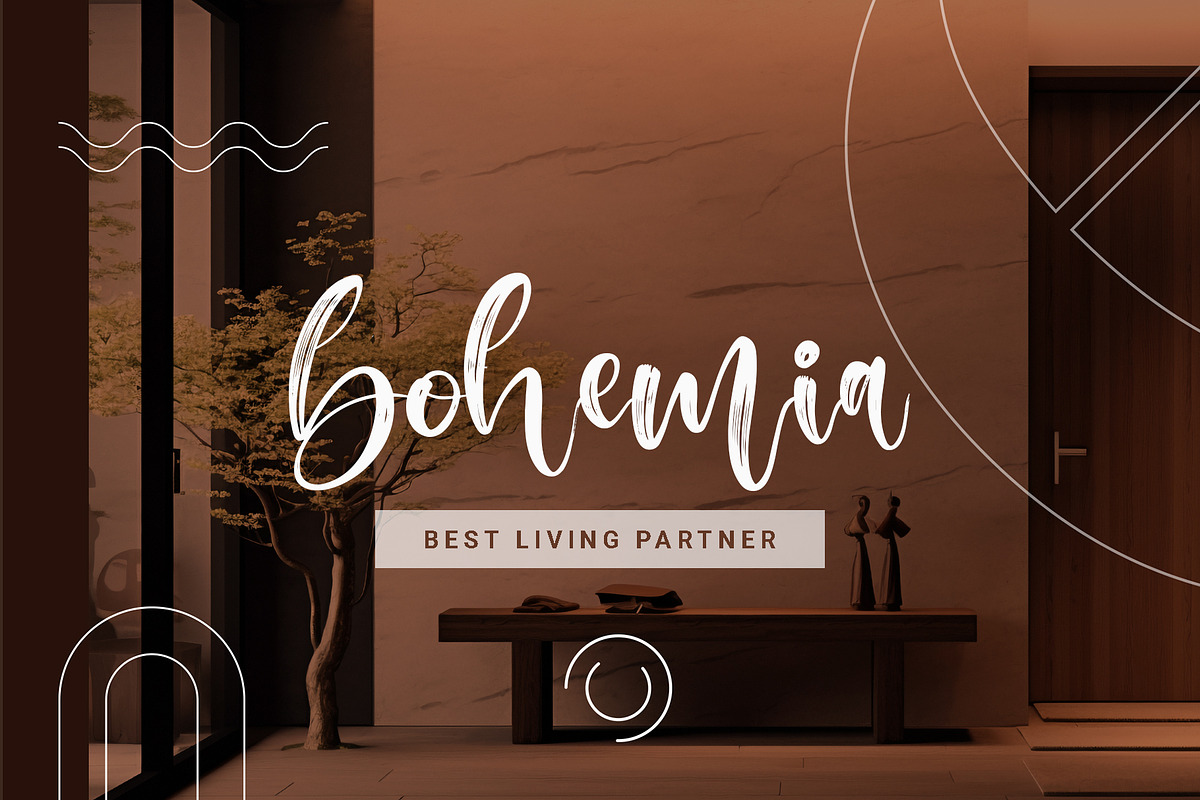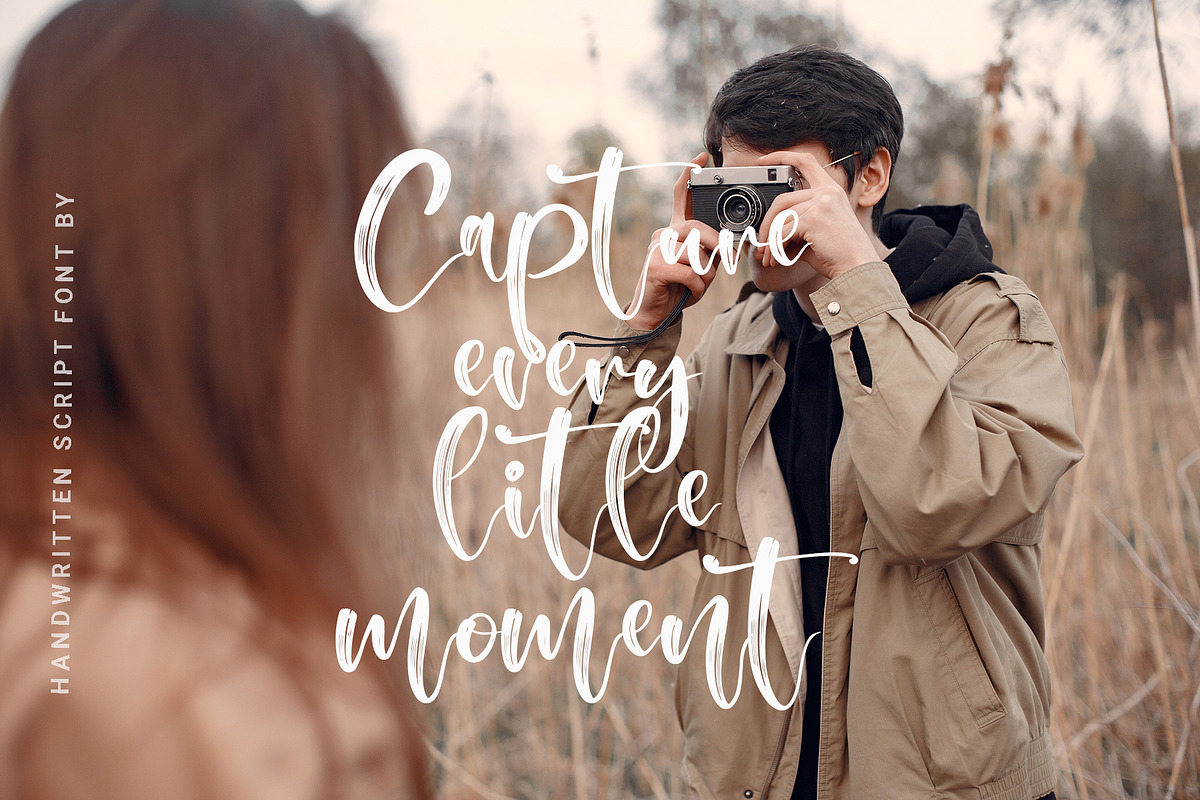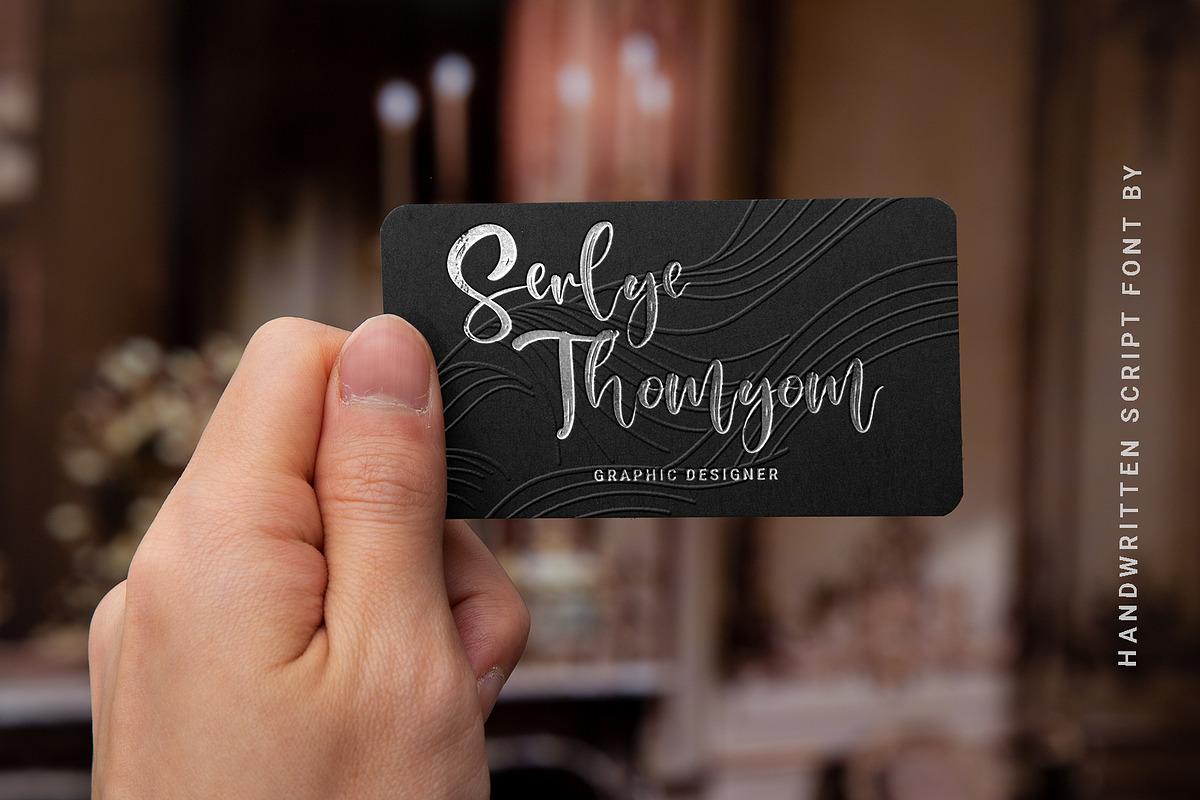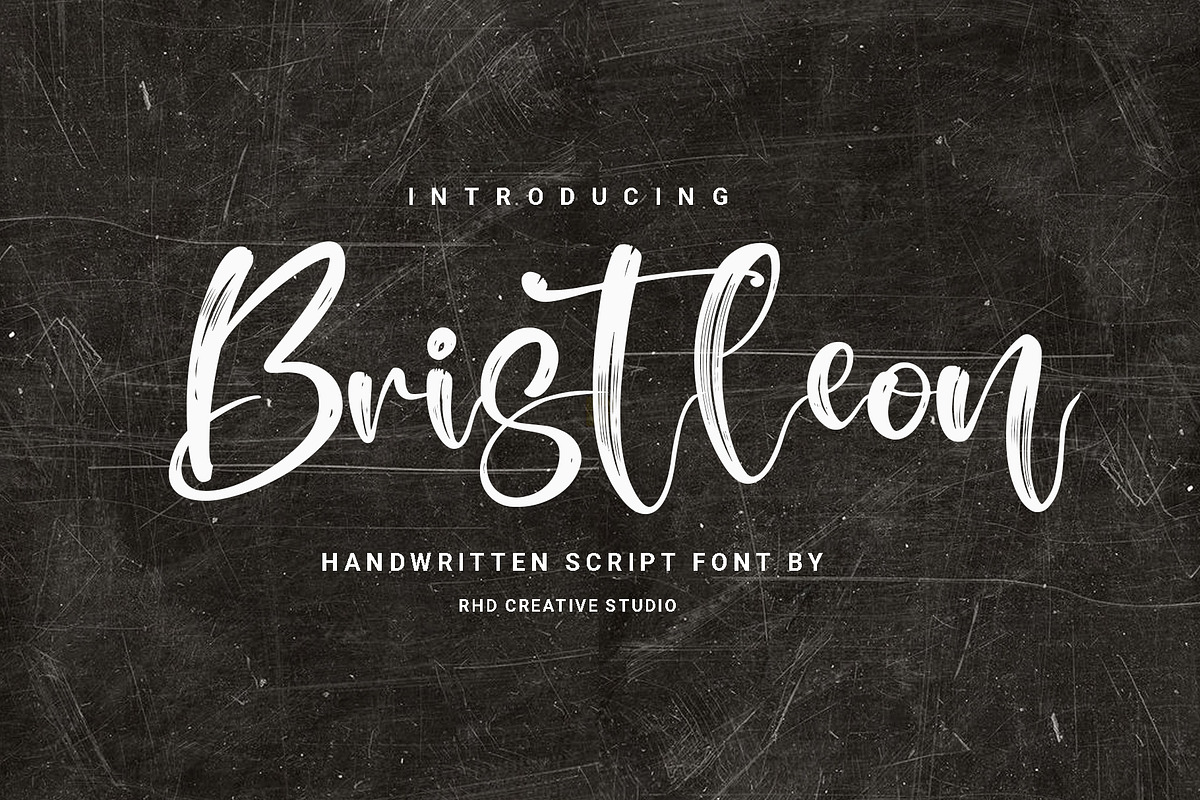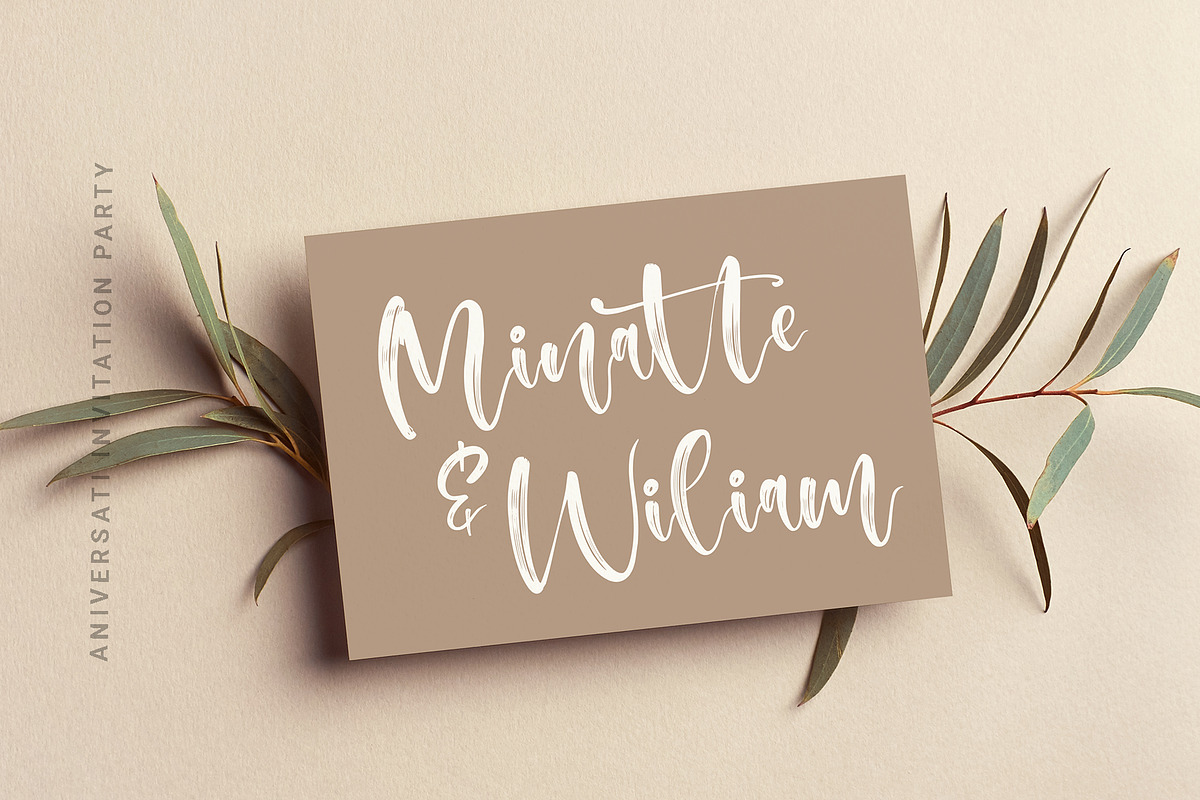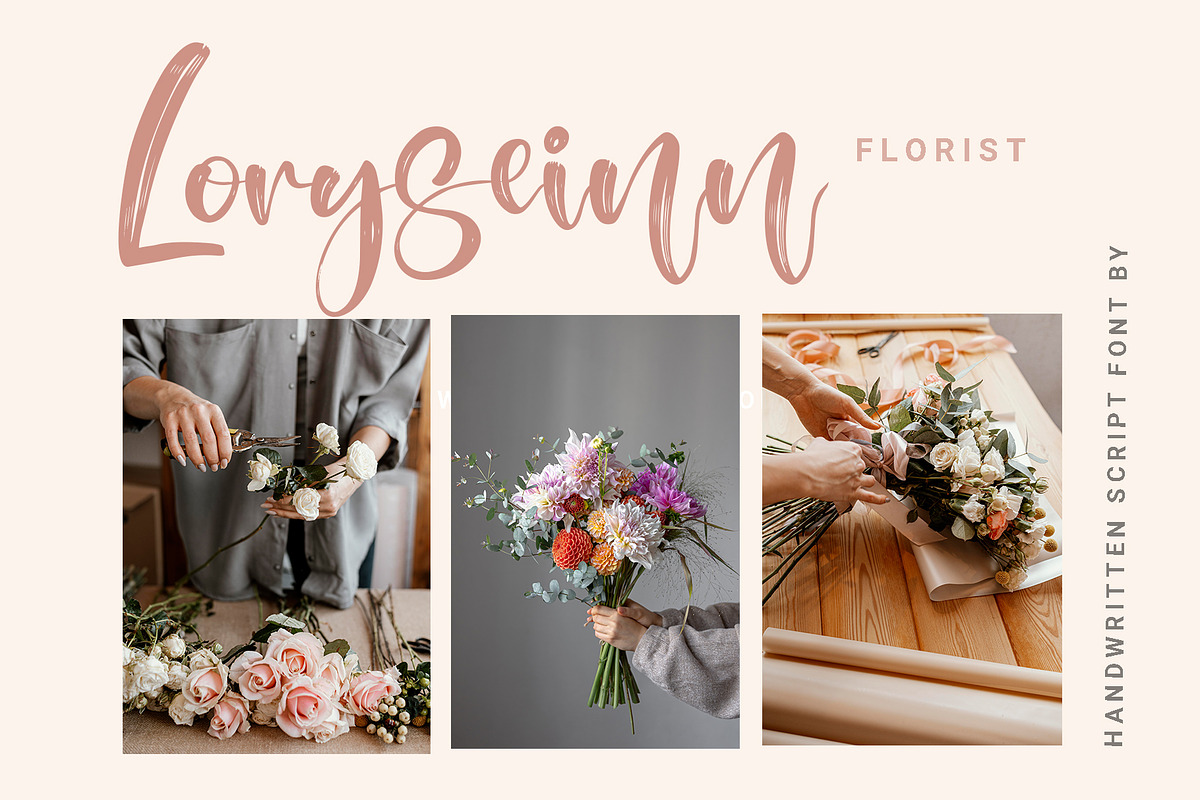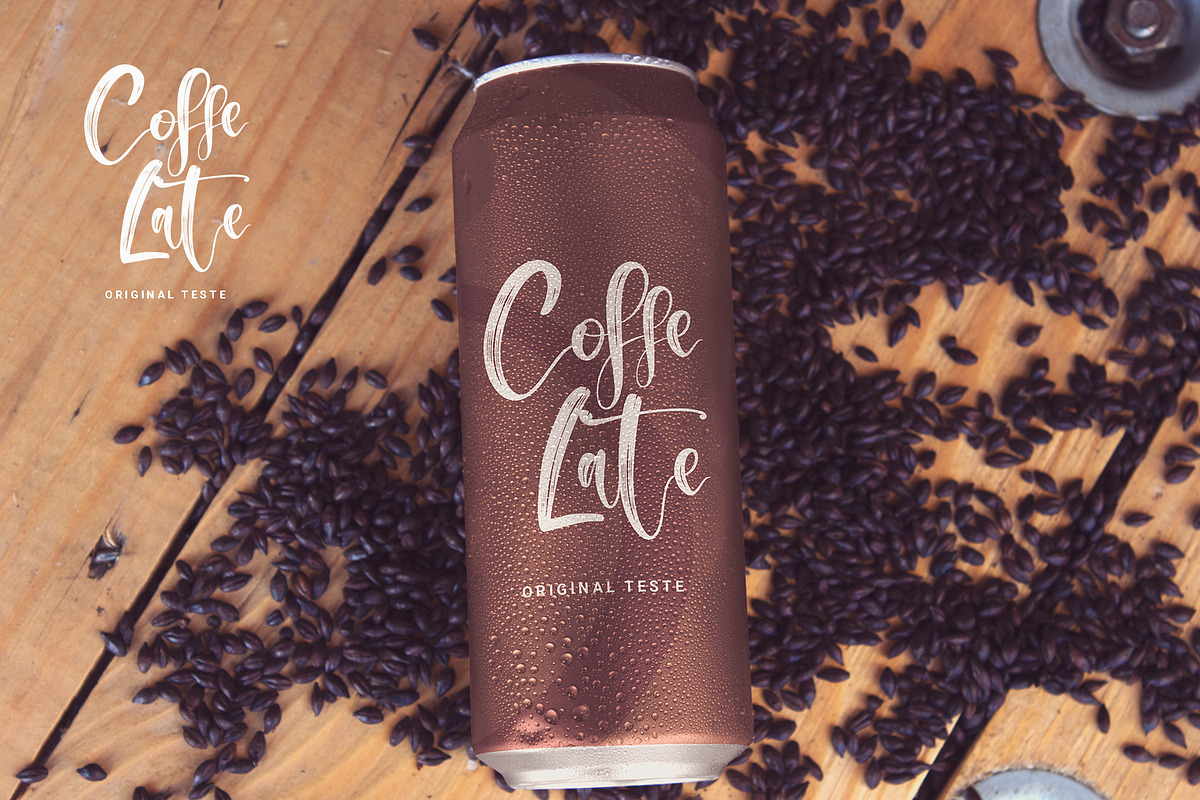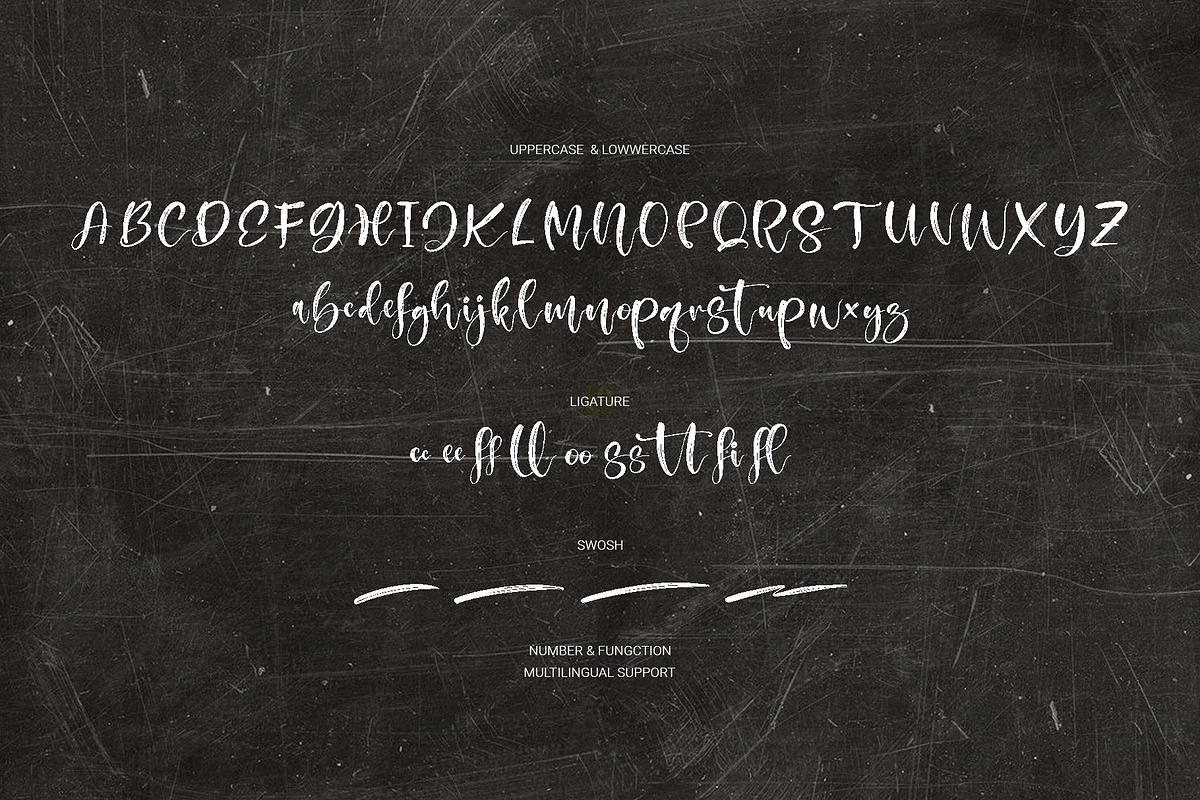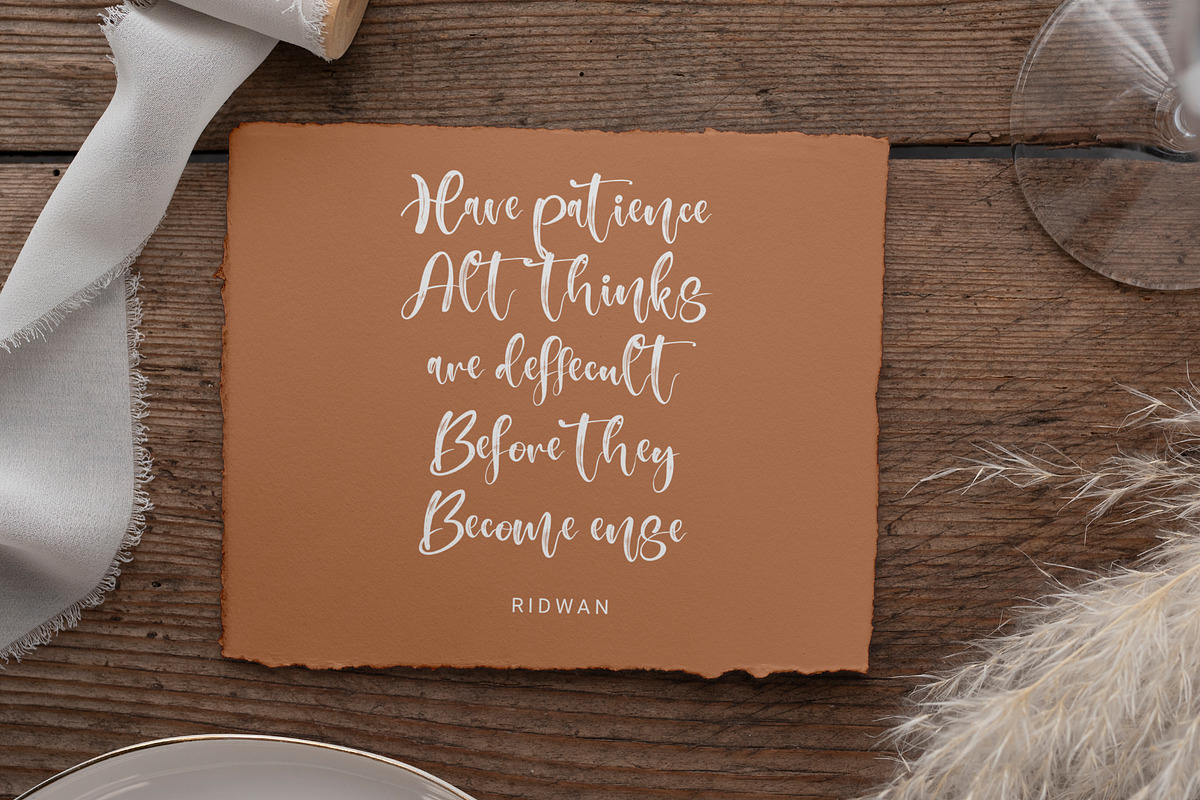
Bristleon - Handwritten Script Font
Hello everyone, I would like to introduce Bristleon - Handwritten Script Font.
Bristleon - Handwritten Script Font with Handmade character. Bristleon - Handwritten Script Font, Modern font to make your design project stand out! Bristleon a perfectly choice for any creative endeavor, creating, modern, chic, lifestyle design such as logotype, title, cover, branding, invitations, wedding designs, display and magazine, social media posts, advertisements, printed quotes, product packaging, corporate brand, product designs, labels, photography, watermarks, special events and any other project with modern touch.